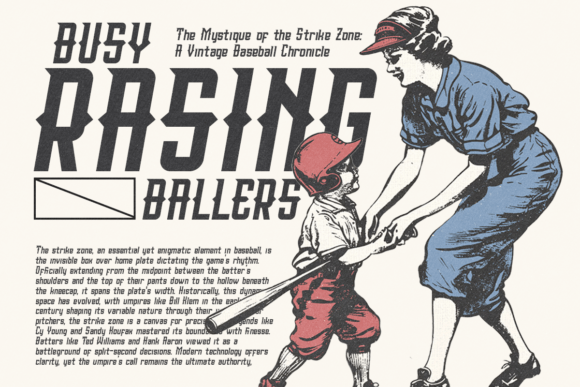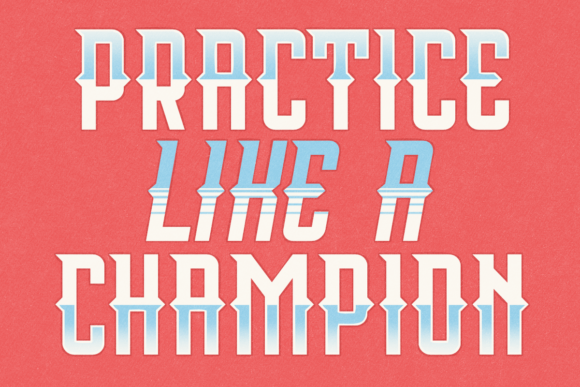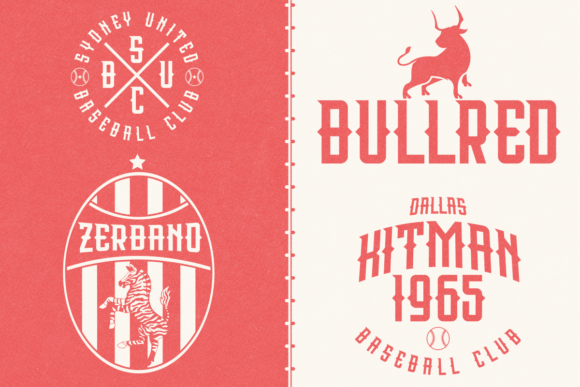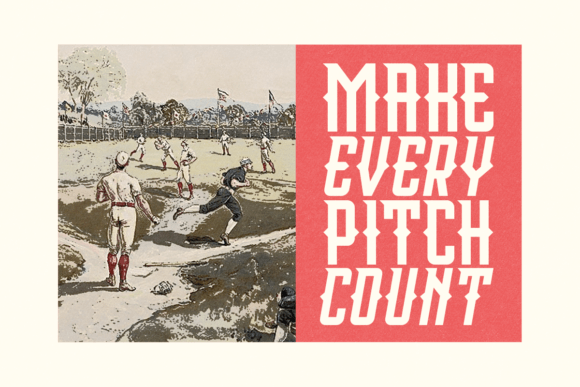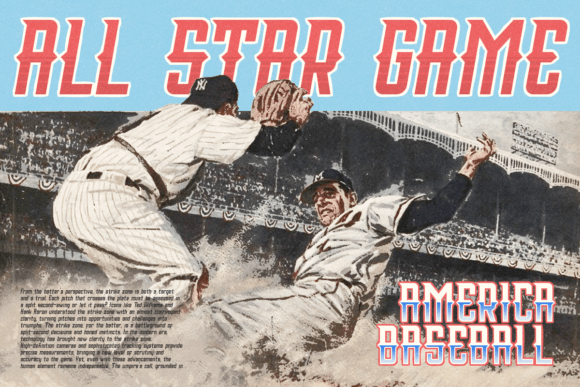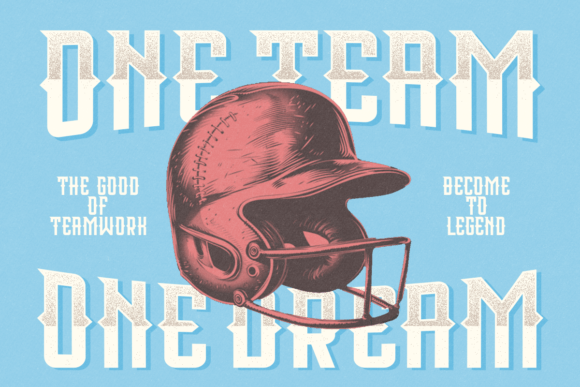
Introduction to Modera Sport Font
Have you ever been stuck on a creative project, staring at a blank page, wondering how to bring your idea to life? For designers, it’s a familiar feeling – but what if the right design resource could be the difference between a great idea and a game-changing one?
That’s where the Modera Sport Font comes in, a powerful and versatile slab display font that combines the rugged charm of old western letters with the strength and power of athleticism. This dynamic font is perfect for sports logos, branding, posters, and apparel design, offering two styles – Regular and Italic – to give your projects a unique flair.
With its high-quality design and OpenType features, including stylistic sets, Modera Sport Font offers flexibility and customization to match your creative vision. Whether you’re working on a high-profile sports branding project or a personal design initiative, this font is a valuable addition to your design toolkit.
Key Features of Modera Sport Font
- High-quality design resource ideal for creative projects requiring a modern and sleek aesthetic.
- Features a transparent background, making it easy to use in designs with complex backgrounds or layers.
- Includes multiple weights and styles, allowing designers to customize their creative project to suit their specific needs.
- Designed with a high-resolution output in mind, ensuring the font looks crisp and clear even at large sizes.
- Modera Sport Font is a versatile design resource suitable for a wide range of creative projects, from logos and branding to digital displays and print materials.
Honest Review: Modera Sport Font
As a designer, I’m always on the lookout for high-quality design resources to elevate my creative projects. The Modera Sport Font is one such find that caught my attention.
What works well: ✨ The font’s modern and sleek design makes it perfect for sports-themed projects, logos, and branding materials. The clean lines and minimalist aesthetic give it a professional look that’s hard to resist.
- High-quality design with clear typography
- Perfect for sports-themed projects and logos
- Can be used with transparent background for a modern look
However, there are some limitations to consider: ⚠️ The font doesn’t come with a wide range of weights, which might limit its versatility in certain design scenarios. Additionally, the font file size is relatively large, which could be a concern for web designers.
To get the most out of the Modera Sport Font, use it in combination with other modern fonts to create a unique and stylish design. Experiment with different font sizes and colors to add emphasis and create visual interest. This font is perfect for creating eye-catching graphics and presentations that stand out from the crowd.
The Modera Sport Font is perfect for a wide range of creative projects, including sports branding, fitness graphics, and modern presentations. Its clean and elegant design makes it ideal for creating transparent backgrounds and adding a touch of modern style to your designs. With its high-quality design and free download, it’s a valuable design resource for any creative project.